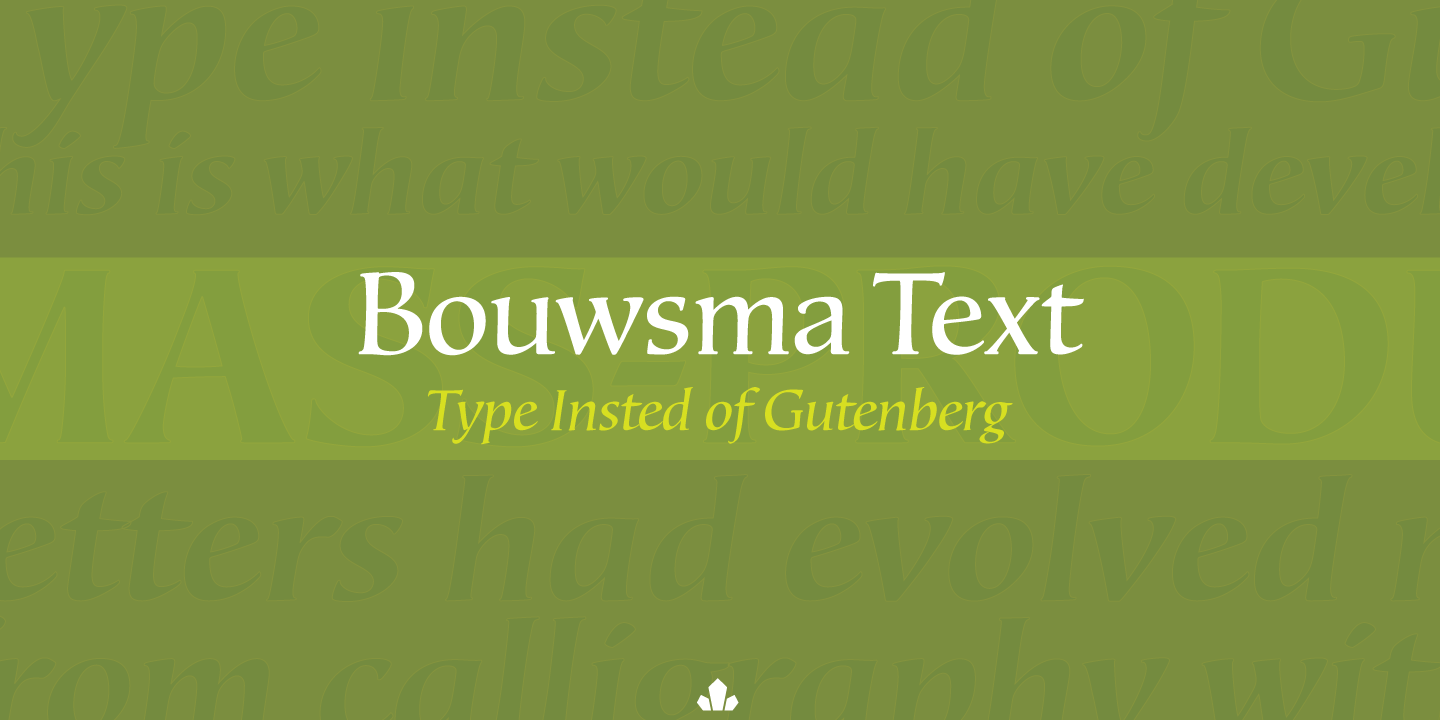
The Bouwsma Text Font is an excellent choice for designs that demand a clear, readable, and highly functional aesthetic, particularly well-suited for extended blocks of text. Imagine it gracing the pages of a well-designed book, providing impeccable clarity for a detailed report, or ensuring comfortable reading on a long-form article online. It's also perfectly suited for academic publications, corporate documents, user manuals, and any project where the primary goal is to convey information efficiently and without visual distraction. Its balanced letterforms and thoughtful spacing make it ideal for conveying professionalism and ease of comprehension.
What makes the Bouwsma Text Font so exciting is its unwavering commitment to legibility and its versatile, understated design. It frequently features well-defined characters that minimize eye strain and enhance reading flow, making it a workhorse for any text-heavy application. This font has a confident and reliable presence that can instantly elevate your design, making it feel both sophisticated and remarkably accessible. It's designed for optimal performance in environments where clear communication is paramount, ensuring your message is not just seen, but effortlessly absorbed and understood.
The Bouwsma Text Font family typically includes a comprehensive range of weights, from a lighter, more subtle cut to a robust bold for emphasis, often accompanied by matching italic versions. This extensive range provides designers with ample flexibility to create clear visual hierarchies and add gentle contrast within their typography. With its broad character set, it supports multiple languages, further expanding its global applicability for various textual and informational contexts. Discover the dependable clarity of Bouwsma Text Font Free Download for your next project focused on effective communication.